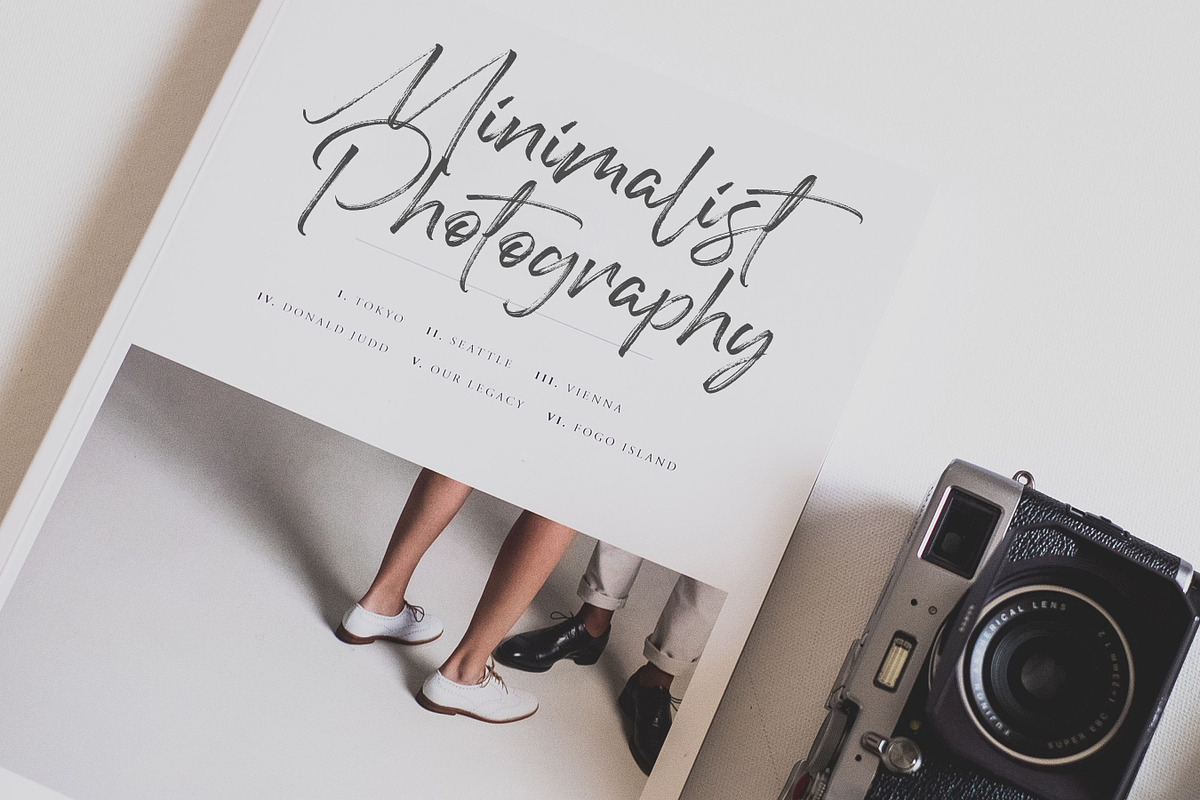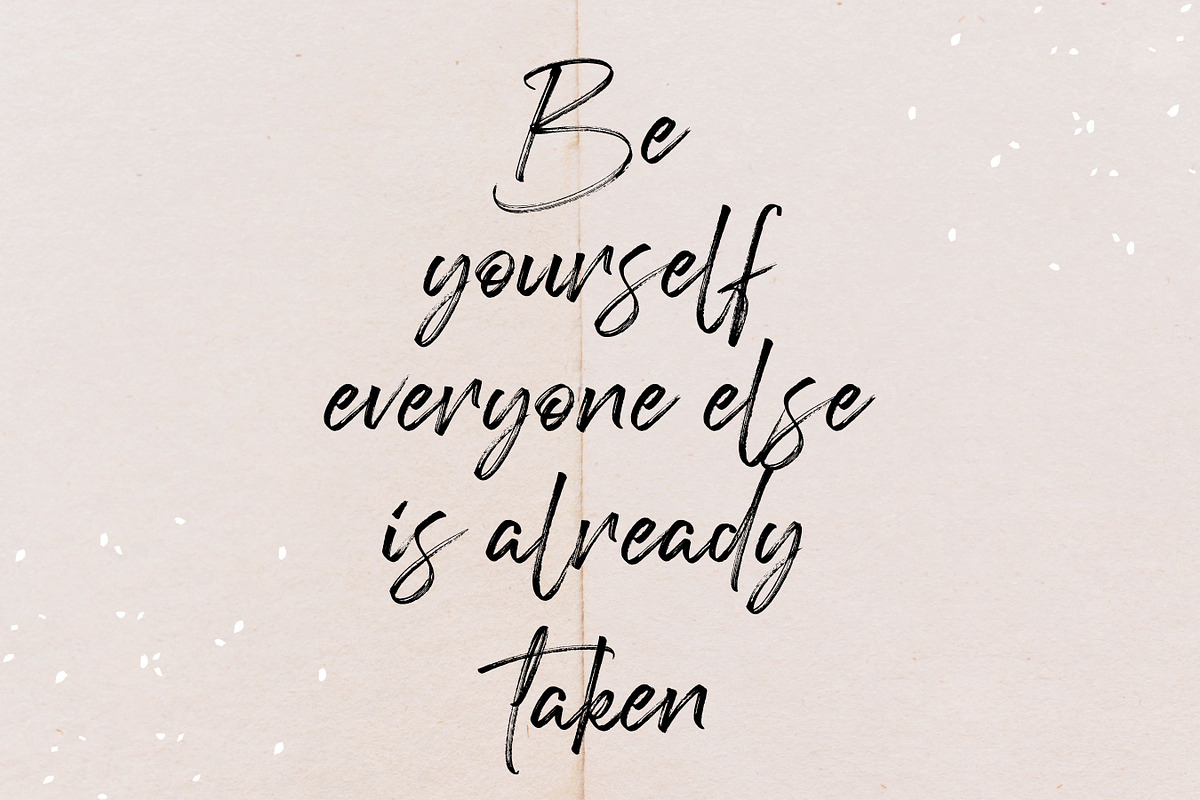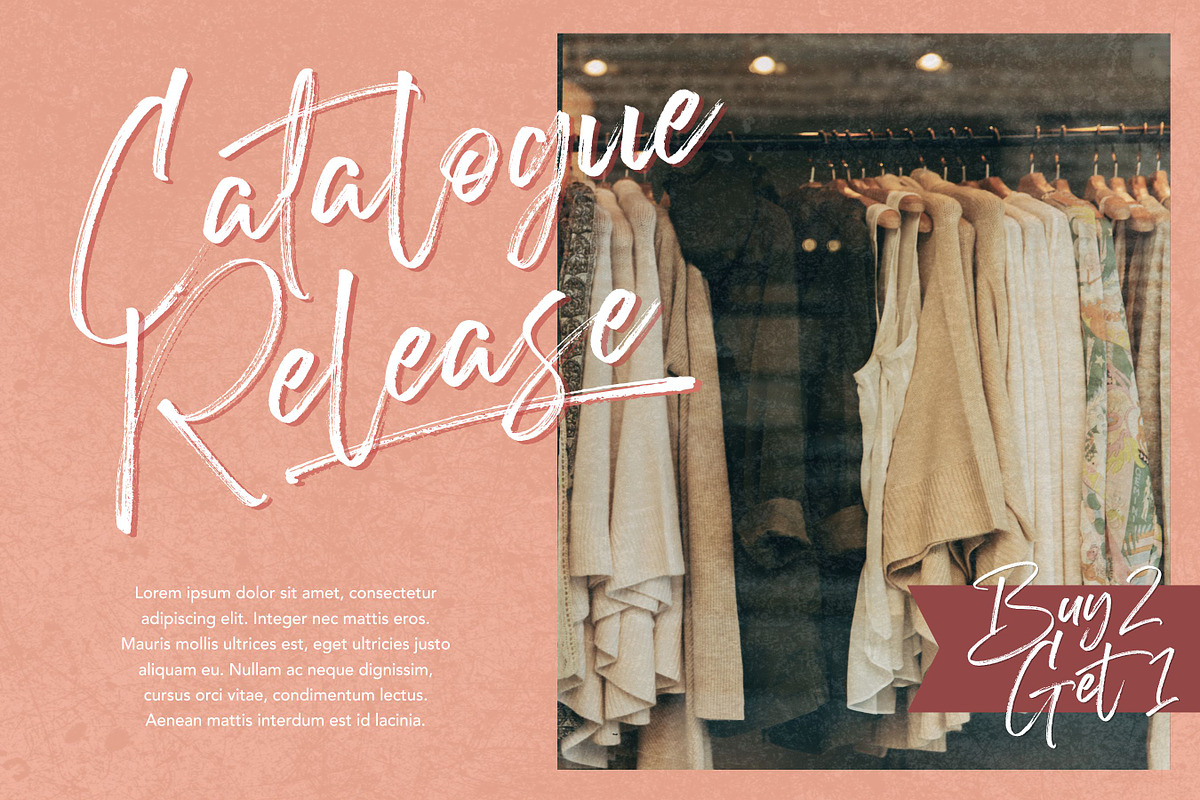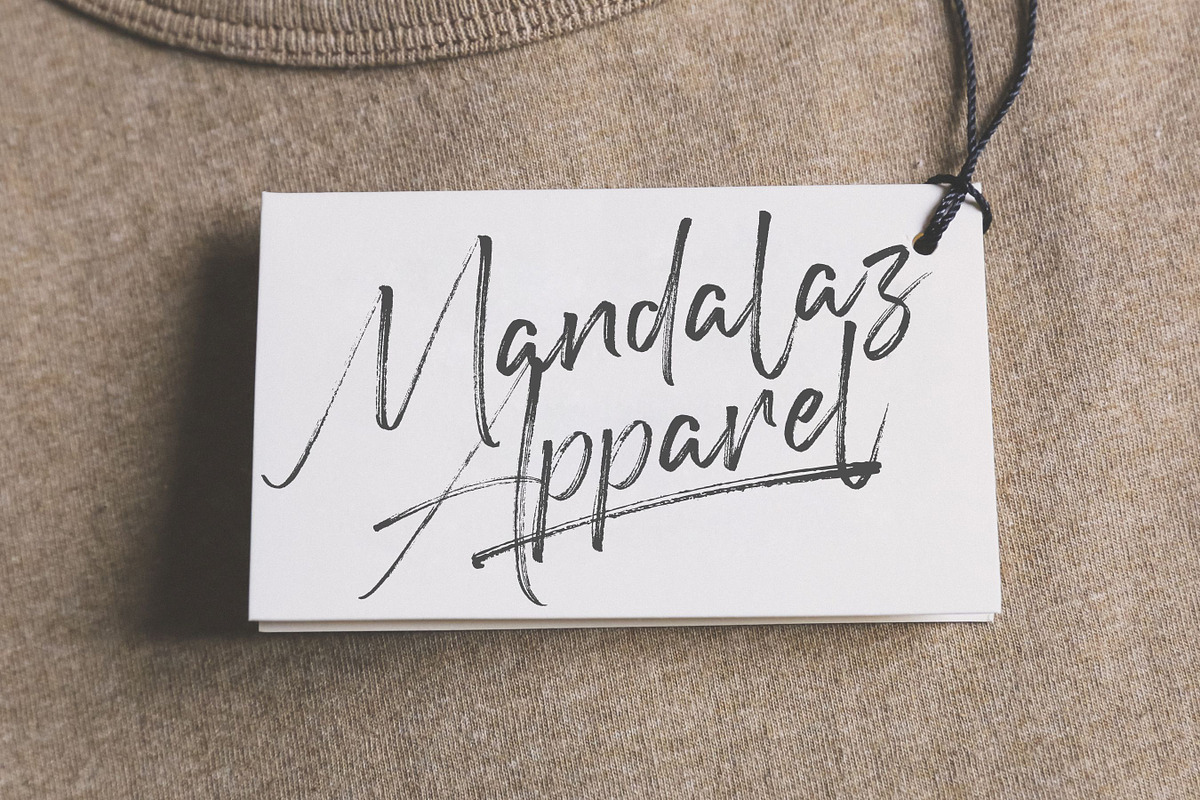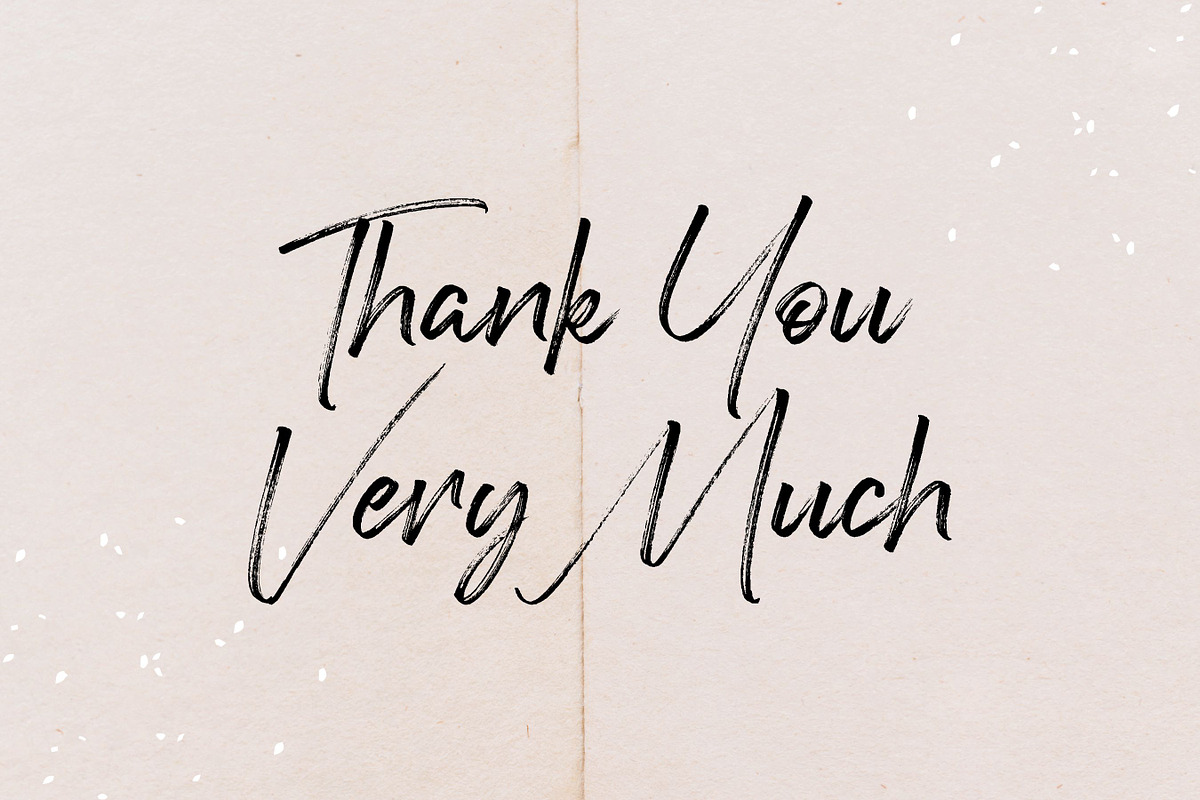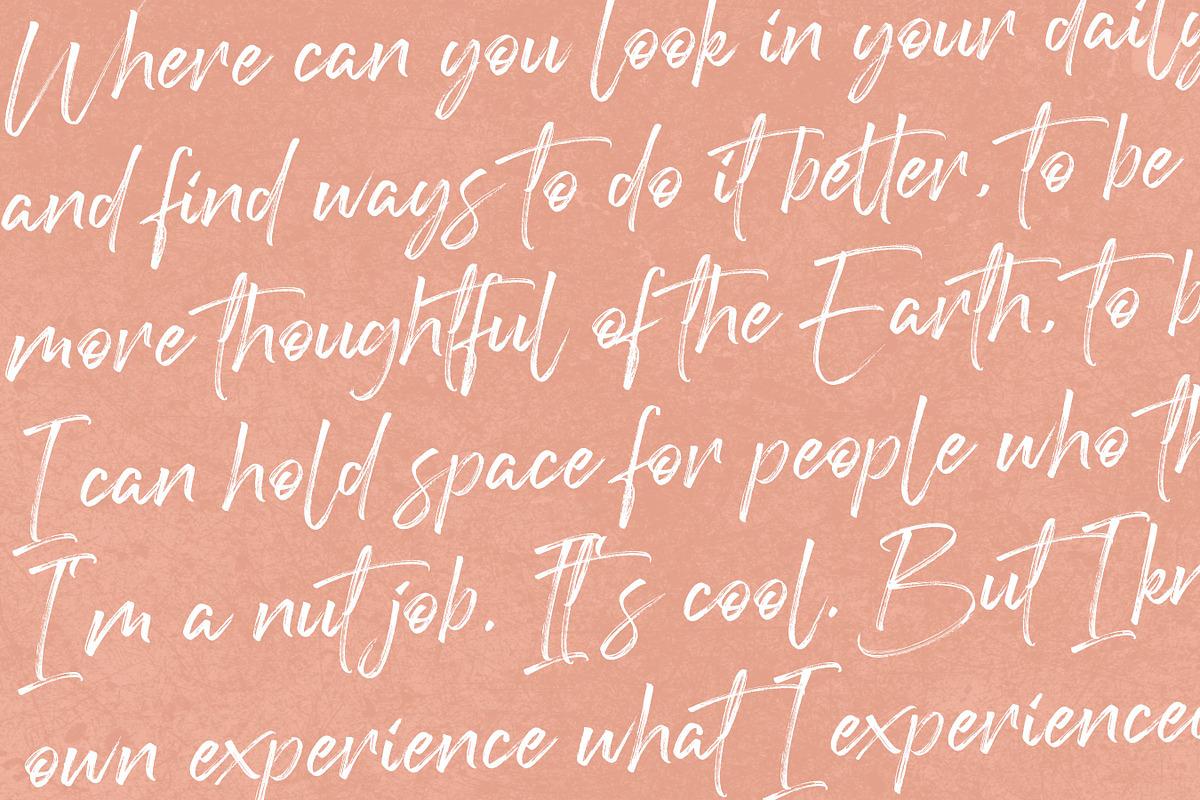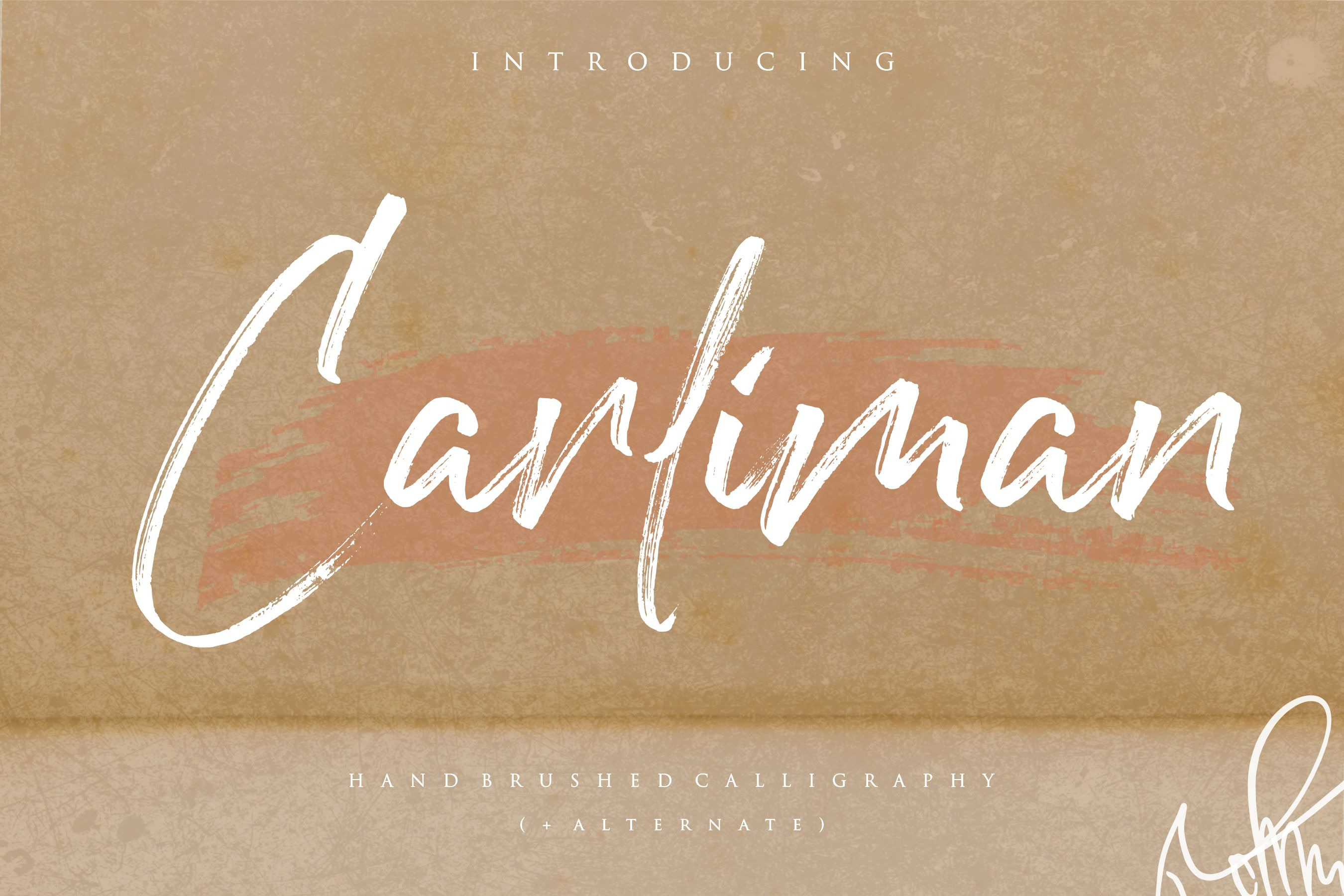
Carliman - Handbrushed Font
Proudly Present, Carliman Font
Carliman is a hand-brushed calligraphy font. Clean and a little bit quirky, this font is the perfect fit for all of your logos, branding, social media, and crafty DIY projects.